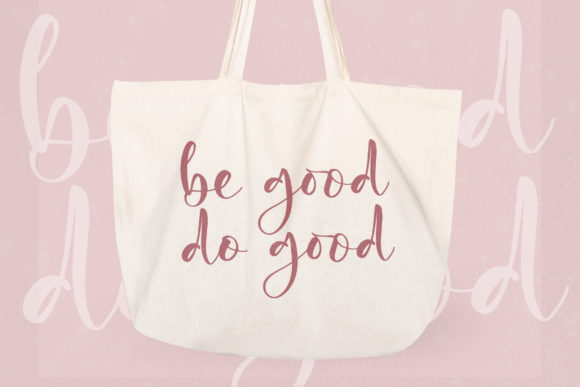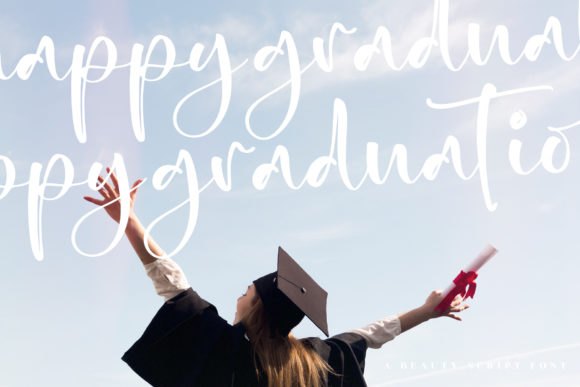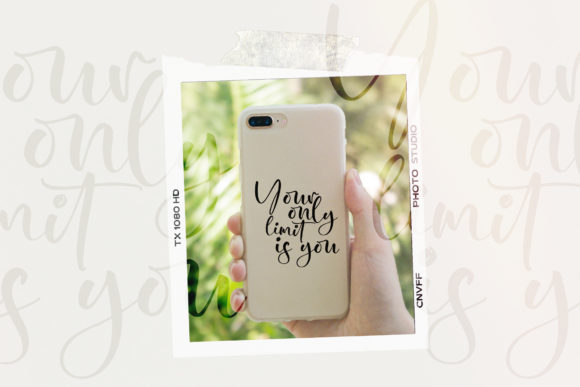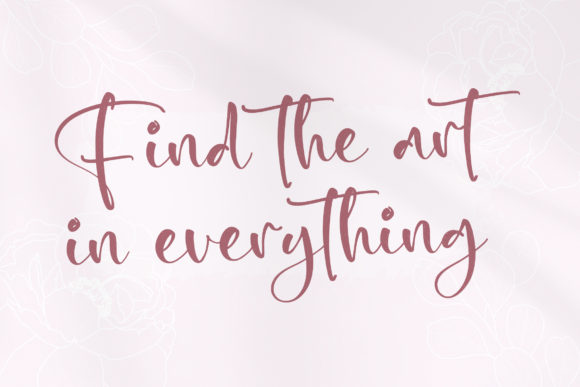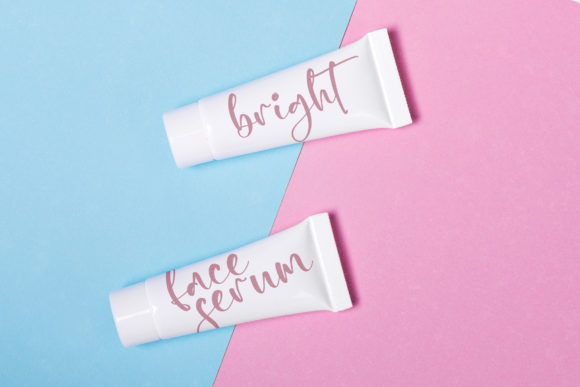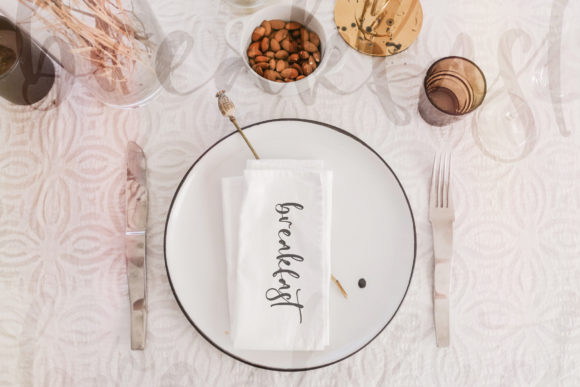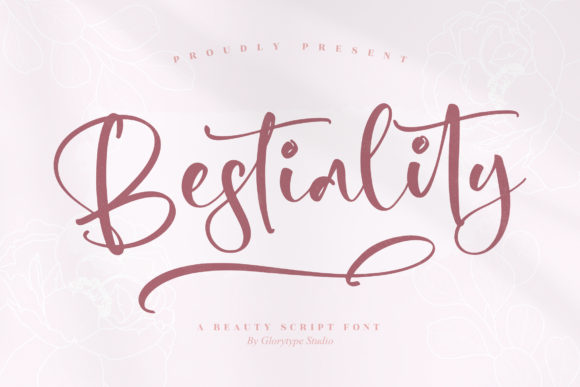
Unleash Your Creativity with Bestiality Font: A Charming Script Font for Designers and Crafters
Are you a designer or crafter looking for a unique and playful font to add a touch of personality to your projects? Look no further than Bestiality Font, a lovely script font that is sure to delight. With its charming and whimsical characters that seem to dance along the baseline, Bestiality Font is the perfect addition to any design or crafting project.
What Makes Bestiality Font So Special?
Bestiality Font is a PUA (Private Use Area) encoded font, which means that you can access all glyphs and swashes with ease. This feature makes it incredibly versatile and user-friendly, allowing you to experiment with different combinations of characters to create a truly one-of-a-kind look. Whether you’re working on a branding project, a craft tutorial, or a digital design, Bestiality Font is sure to bring a smile to your face and inspire your creativity.
Key Features of Bestiality Font
• Charming and playful characters: Each character in Bestiality Font has been carefully crafted to be charming and playful, making it perfect for projects that require a touch of whimsy.
• PUA encoded: With PUA encoding, you can access all glyphs and swashes with ease, giving you complete creative control.
• Dancing baseline: The characters in Bestiality Font seem to dance along the baseline, adding a sense of movement and energy to your designs.
• Versatile: Bestiality Font is perfect for a wide range of projects, from branding and advertising to crafting and digital design.
How to Use Bestiality Font in Your Projects
Bestiality Font is incredibly easy to use, even if you’re new to working with fonts. Here are a few tips to get you started:
• Pair it with a bold font: Bestiality Font pairs perfectly with bold, sans-serif fonts. Try pairing it with a font like Arial Black or Impact for a striking contrast.
• Experiment with swashes: With PUA encoding, you can access a range of swashes and glyphs to add extra flair to your designs.
• Use it for headings and titles: Bestiality Font is perfect for headings and titles, adding a touch of personality and whimsy to your designs.
Why Designers and Crafters Love Bestiality Font
Bestiality Font has quickly become a favorite among designers and crafters, and it’s easy to see why. Here are just a few reasons why:
• Unique and eye-catching: Bestiality Font is a true showstopper, adding a touch of personality and whimsy to any design or project.
• Easy to use: With PUA encoding and a simple, intuitive design, Bestiality Font is easy to use, even for beginners.
• Versatile: Bestiality Font is perfect for a wide range of projects, from digital designs to craft tutorials and more.
If you’re looking for a unique and playful font to add a touch of personality to your designs or crafting projects, Bestiality Font is the perfect choice. With its charming and whimsical characters, PUA encoding, and dancing baseline, Bestiality Font is sure to inspire your creativity and bring a smile to your face. So why wait? Download Bestiality Font today and unleash your creativity!